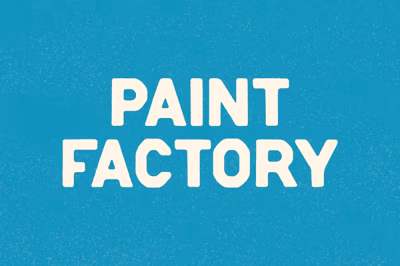
Technik Font
Technik Font is perfect for engineering firm branding, industrial equipment signage, technical manual headers, manufacturing company logos, precision tool packaging, scientific instrument marketing, automation system interfaces, and professional technical communications.
What makes Technik Font exciting is its industrial strength that combines technical precision with functional reliability. The font features clean letterforms with mechanical proportions and engineered character that evoke factory floors, precision machinery, and the systematic excellence of German engineering tradition. Its distinctive technical styling and functional design communicate competence, durability, and methodical expertise, making every message feel built to exacting standards and engineered for optimal performance under demanding conditions.
The Technik Font family includes regular weight with uppercase and lowercase letters, numerals, punctuation marks, and comprehensive technical symbols. Premium versions often feature multiple weights and industrial alternates that enhance the engineering, professional aesthetic perfect for technical and manufacturing applications.
This robust technical typeface brings instant authority and industrial credibility to any engineering-focused project. Technik Font Free Download offers exceptional value for businesses in manufacturing and technical industries seeking to communicate precision, reliability, and professional engineering excellence to industrial clients and technical professionals.
The functional character of Technik Font makes it particularly valuable for precision manufacturing companies, engineering consultancies, and industrial automation firms. Its excellent legibility ensures technical specifications and safety instructions remain clear while maintaining the distinctive industrial aesthetic that appeals to professionals requiring reliable technical solutions and proven engineering expertise.
Industrial marketers and technical professionals appreciate how Technik Font effortlessly conveys engineering competence and functional reliability. The font's mechanical proportions and industrial details create trustworthy brand materials that establish confidence with audiences seeking precise manufacturing solutions and systematic technical approaches.
The versatile engineering appeal of this typeface extends to aerospace manufacturing, automotive suppliers, and medical device companies where technical precision drives safety and performance. Technik Font Free Download provides creative professionals with an essential tool for developing memorable, precision-driven designs that resonate with audiences who value engineering excellence, industrial reliability, and the systematic approach of professional technical expertise in today's demanding manufacturing environment.